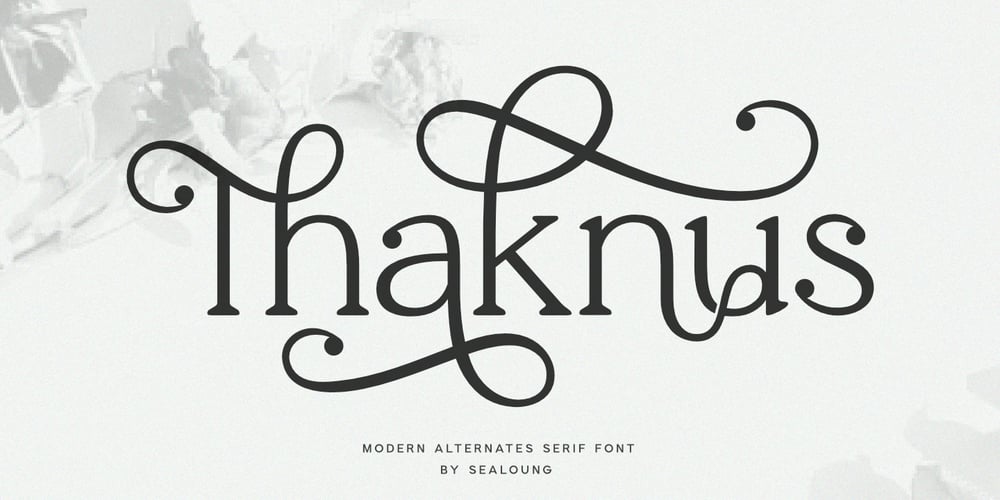
Thaknus Font Family was designed by Saiful Anwar and published by Sealoung. Thaknus contains 1 styles and family package options. Thaknus is a beautiful, elegant, and unique font that has many flowing style alternates and also uses binders to seamlessly connect letters. Perfect for branding, logos, invitations, mastheads, and more. Thaknus has 32 ligatures, 73 alternates for an upper and lower case as well as numbers and punctuation making it very versatile for your beautiful designs.Thaknus also includes the full set: Uppercase and lowercase Number punctuation ligatures Alternates multilingual Support Hope you enjoy our fonts and if you have any questions feel free to message me & I’m happy to help ๐